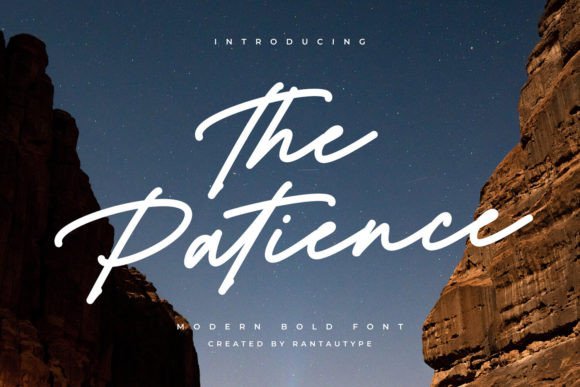
Behold, The Patience Font - A Script Font Symphony for Creative Expression
In the realm of typography, where letters dance and words take flight, The Patience Font emerges as a captivating creation, a script font symphony that ignites the imagination and empowers creative expression.
Crafted with meticulous attention to detail by the skilled artisans of RantauType, The Patience Font embodies a captivating blend of modernity, professionalism, and effortless style. Its carefully designed glyphs exude a sense of sophistication and elegance, while maintaining optimal readability and usability.
Unleash your creative spirit and let The Patience Font guide you through a world of limitless possibilities. Whether you're a seasoned designer or just starting your creative journey, this font will elevate your work to new heights.
Embrace the allure of The Patience Font and watch as your words transform into captivating expressions of art. Its clean and contemporary lines lend themselves perfectly to a wide range of design projects, from branding and wedding invitations to personal blogs and social media posts.
Immerse yourself in the world of The Patience Font and discover a font that not only enhances your designs but also reflects your unique style and vision. Let its graceful curves and elegant strokes bring your creative ideas to life with a touch of timeless beauty.